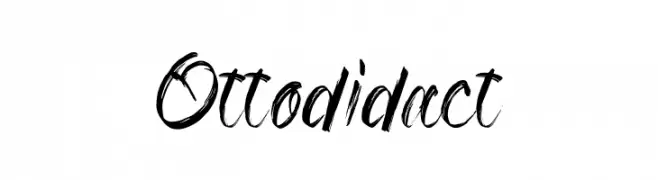
A bold, expressive handwritten font with dynamic, brush-like strokes.
A bold, brush-style font with a hand-painted, artistic look.
A playful, hand-drawn style font with tall, narrow letters.
A cursive, handwritten font with a casual and flowing style.
A playful and casual handwritten font with smooth curves and bold strokes.
A bold, expressive handwritten font with dynamic strokes and fluidity.
A bold, expressive handwritten font with a brush-like texture.
A decorative font with elaborate swashes and flourishes, exuding elegance.
A lively and expressive handwritten font with dynamic strokes.
Bold and expressive handwritten script font.